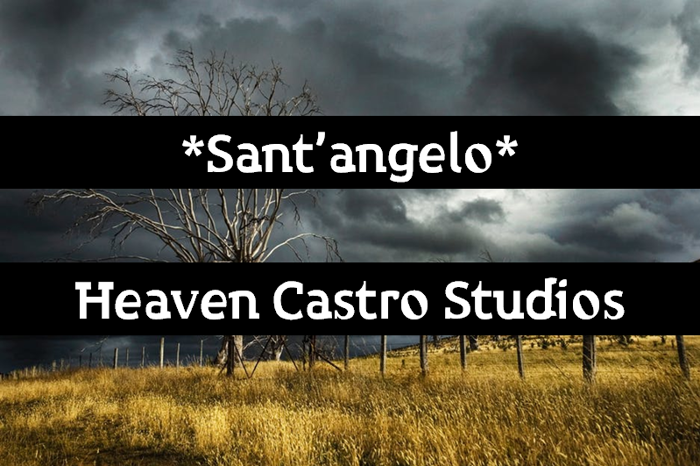
Sant'angelo Font
Sant'angelo is a new post-modern, semi-serif font that was named after original Touhou Project characters, the sisters Michel, Saraka and Tamako.
There is alternate a (plus accents) that can be accessed if you have a program with OpenType Feature options.